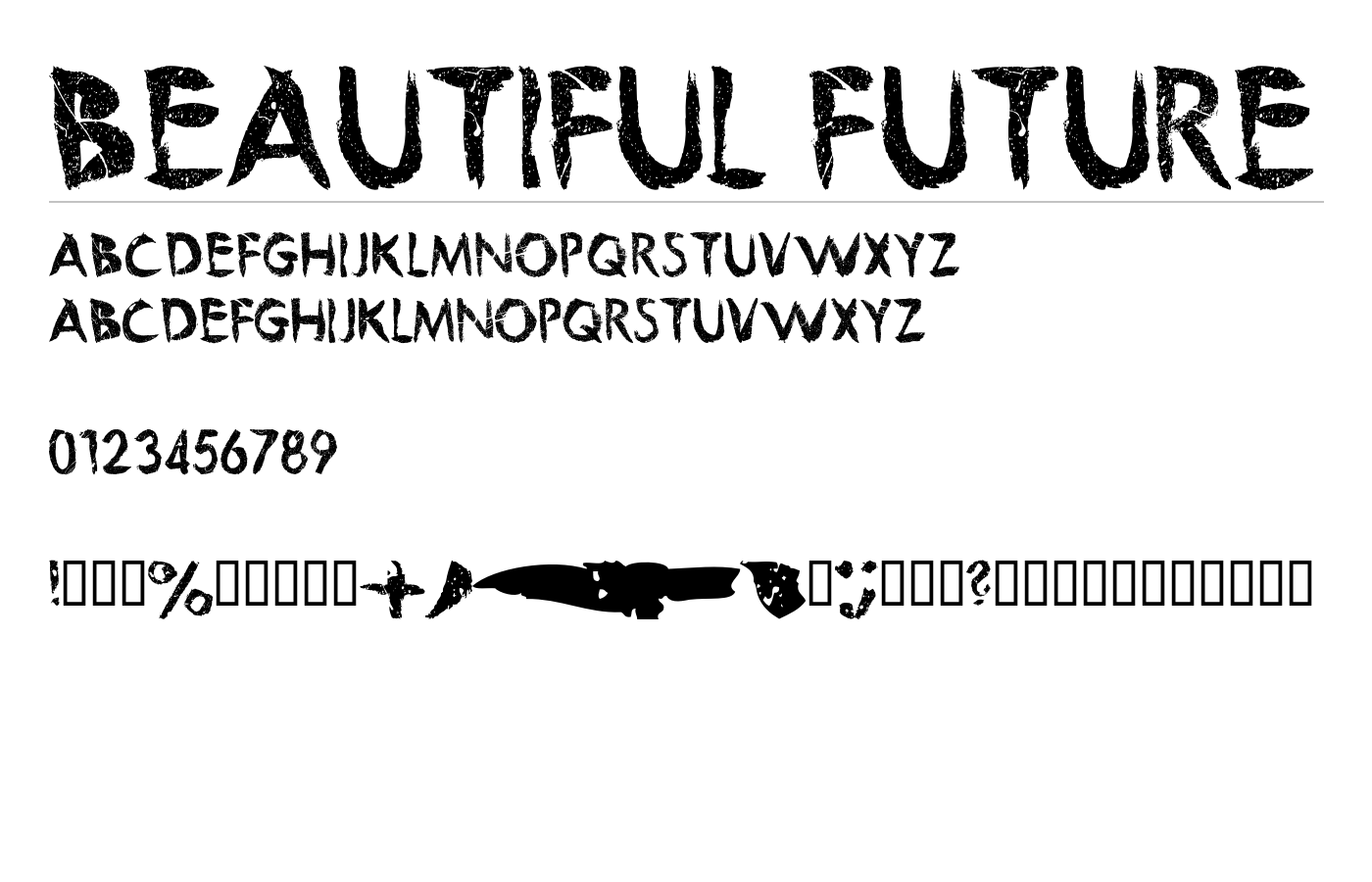
Beautiful Future is a bold, hand-drawn sans serif font featuring rough, textured strokes that create a raw and urban feel. Its uppercase letters have a quirky, irregular style that adds a playful and expressive vibe, making it perfect for creative projects, posters, and branding that seek an edgy, youthful personality. This font stands out with its artistic imperfection, ideally suited for eye-catching headlines and unique design statements.
Beautiful Future Font
About Beautiful Future Font
| Font family | Beautiful Future Font |
| Designer | Darko |